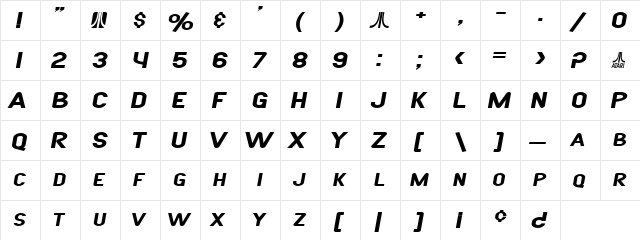
SF Atarian System Extended Bold Italic Font Preview
Design Context for SF Atarian System Extended Typeface
SF Atarian System Extended takes a measured approach to typography — its balanced proportions and neutral character make it a reliable workhorse for both digital and print work. Its italic angle brings a sense of urgency and motion to the letterforms. The heavy weight commands attention and anchors typographic hierarchies.
Pro Tip: Try SF Atarian System Extended for annotation and caption copy alongside an upright companion — the contrast in angle creates a dynamic but ordered typographic system.